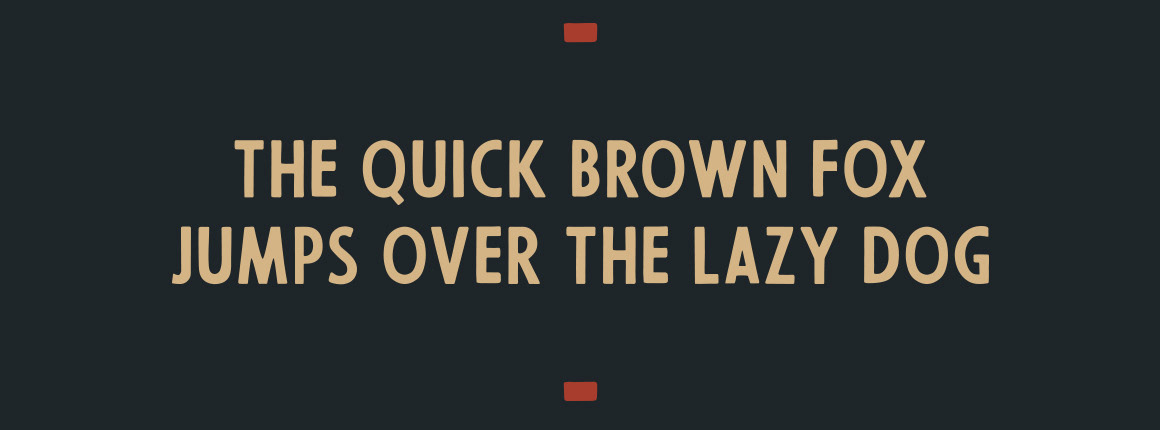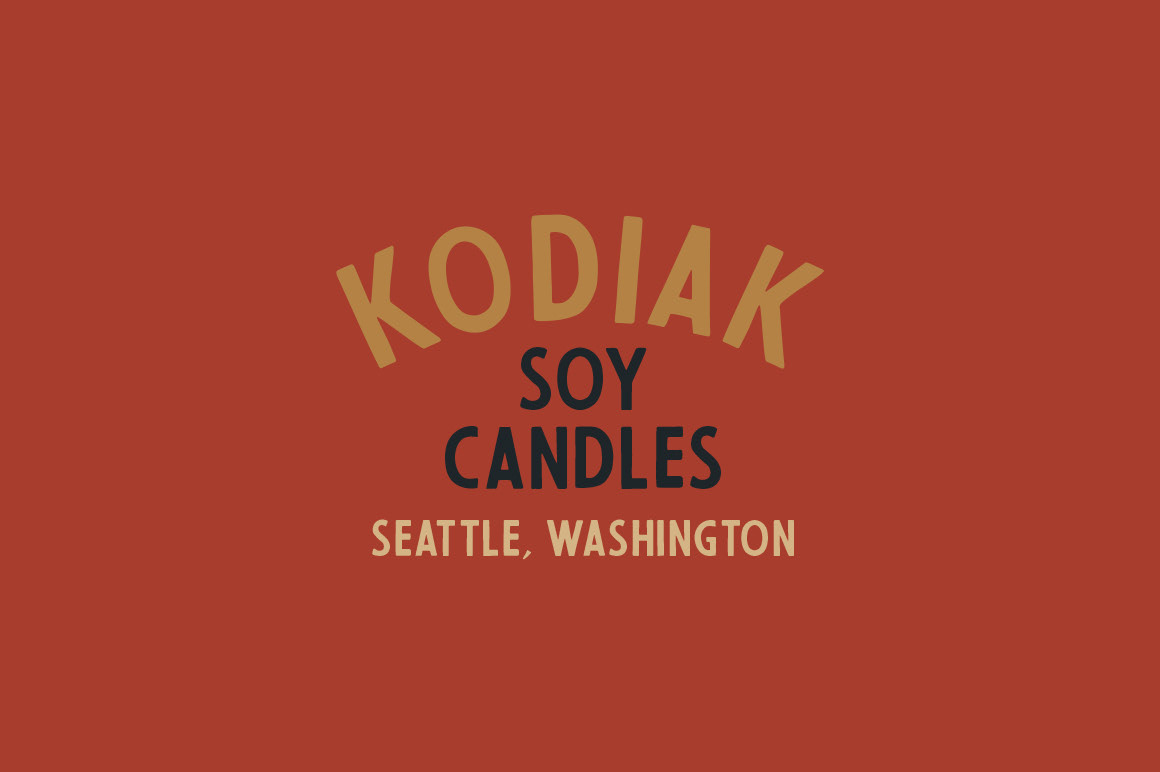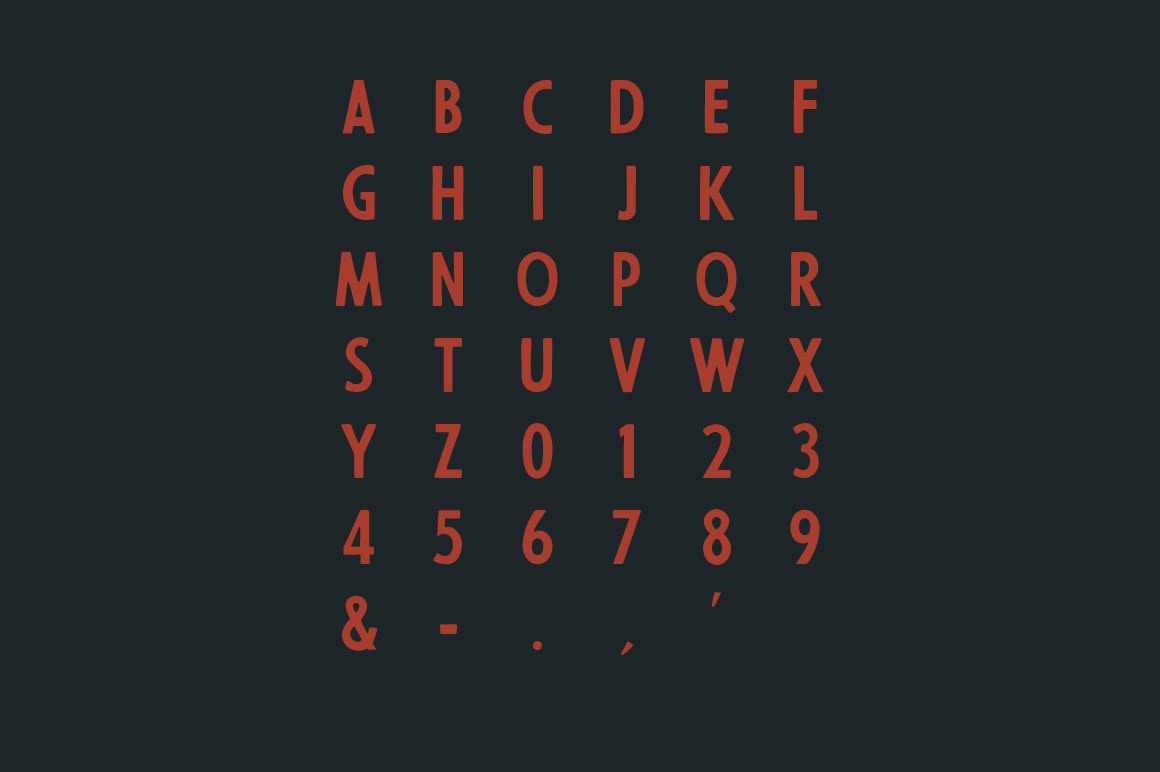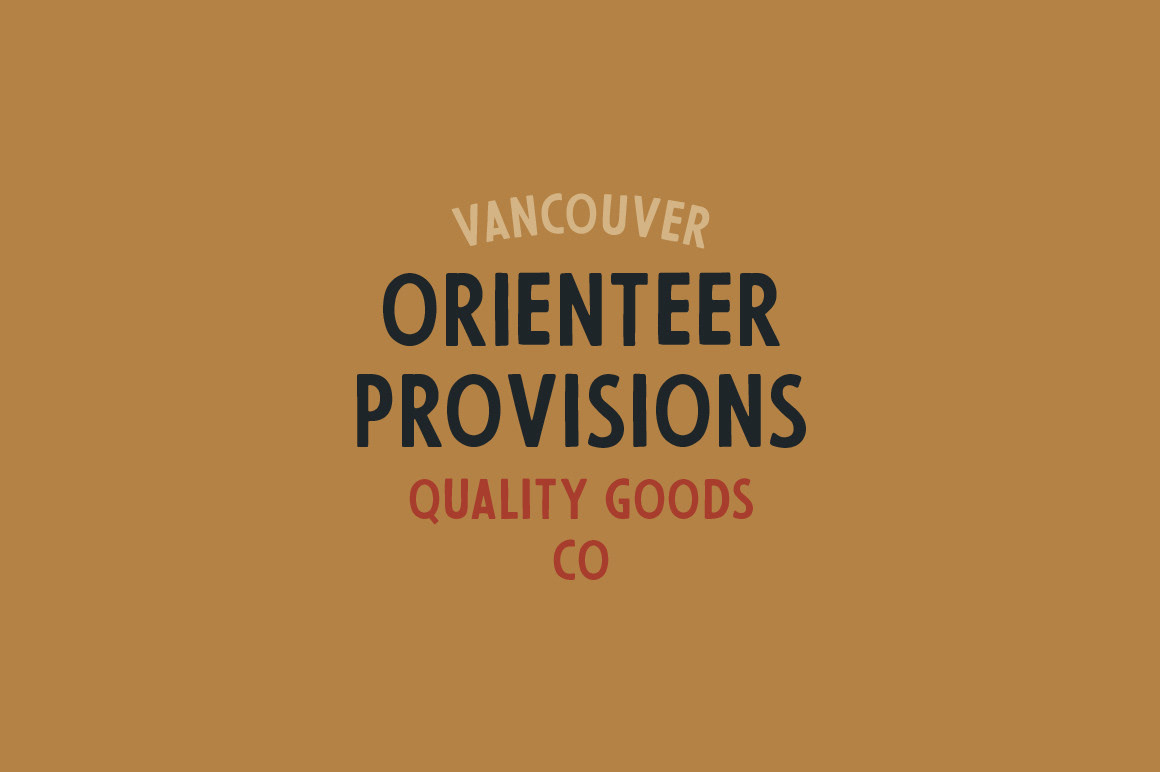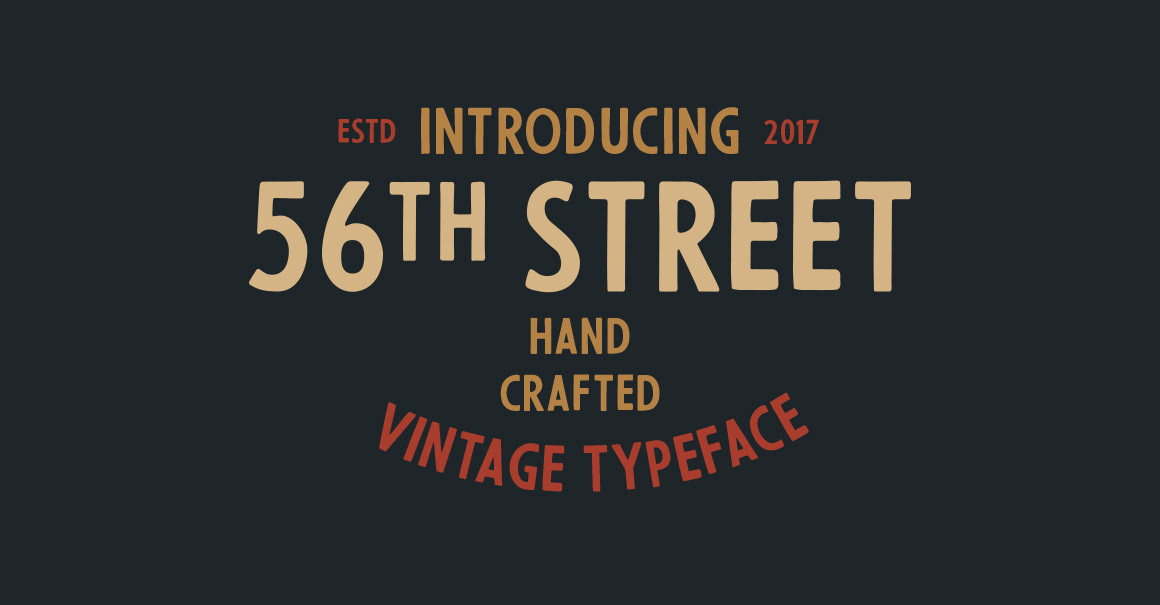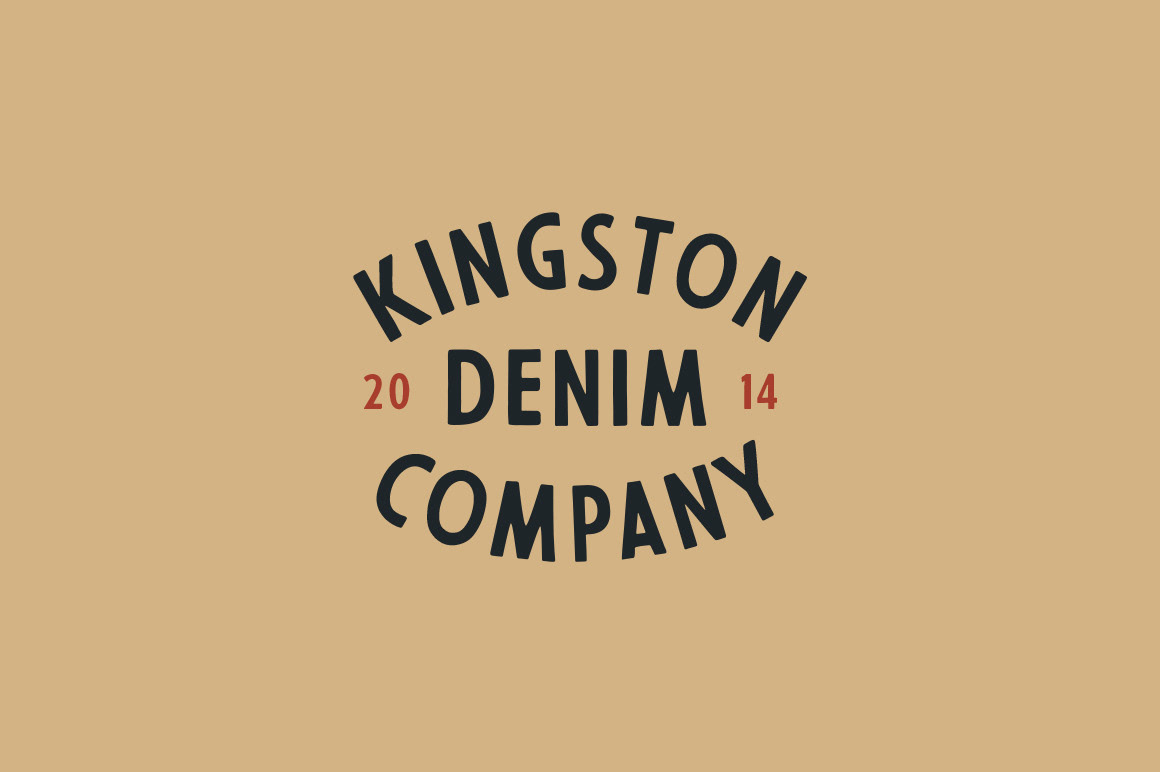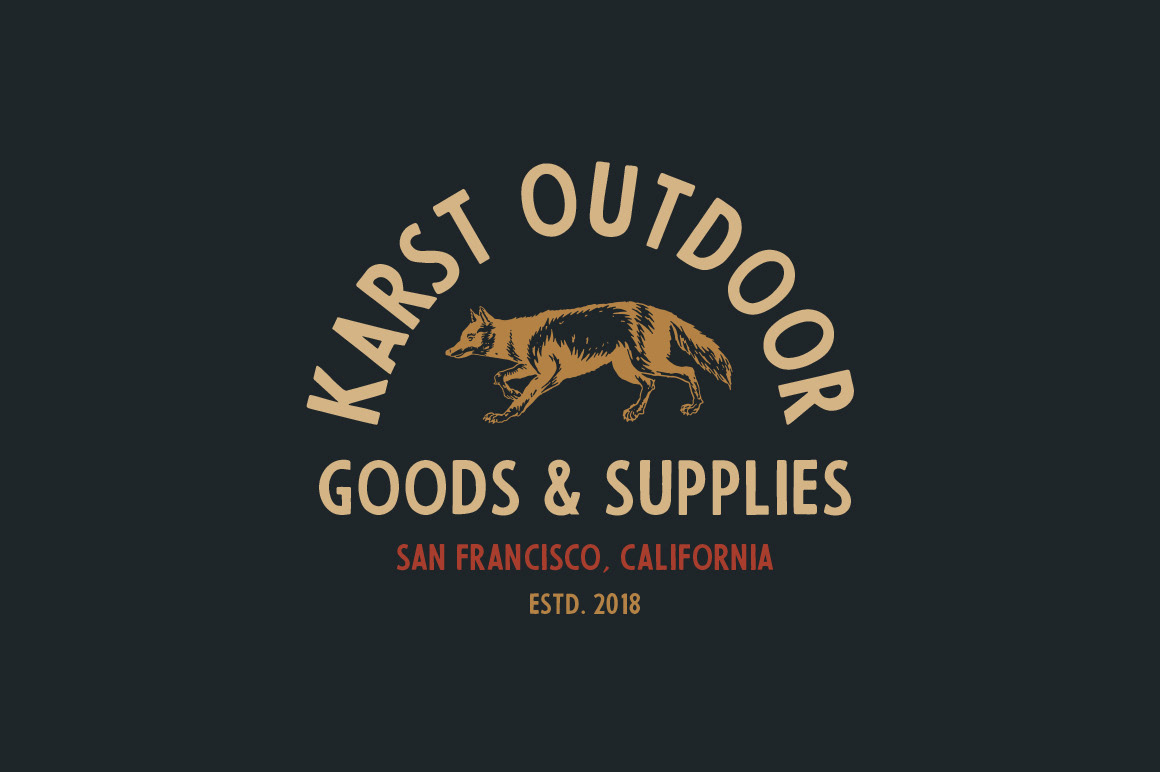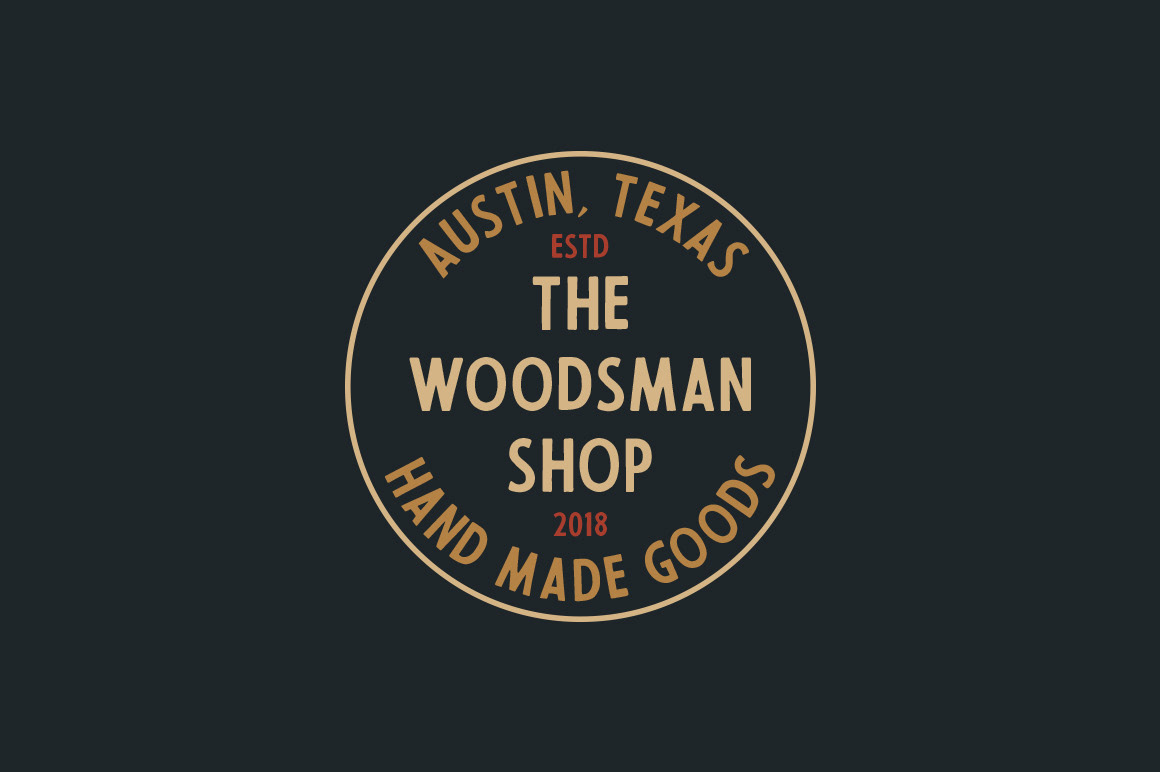
This hand drawn sans-serif font from James Lafuente is inspired by old signage and is extremely versatile and perfect for achieving that vintage aesthetic with your designs. It features upper case characters, numbers, and select punctuation that will work great in branding, badges, labels, apparel, headlines and much more!